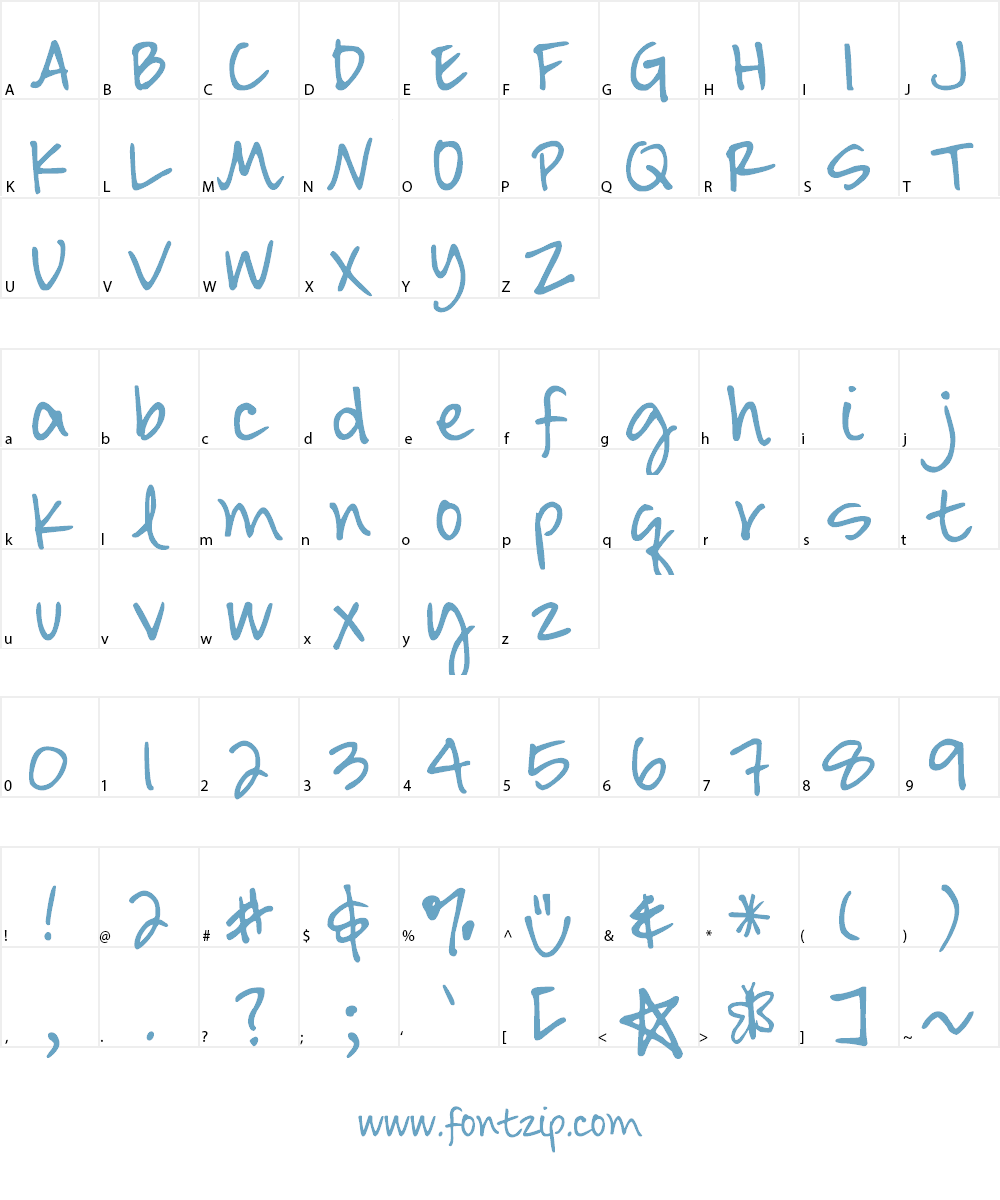
Do you think you're a smartypants? Here's an awesome hybrid font for you to match your personality! It also includes European language characters. Available for free personal use and commercial licensing available at http://darcybaldwin.com/commercial-use/